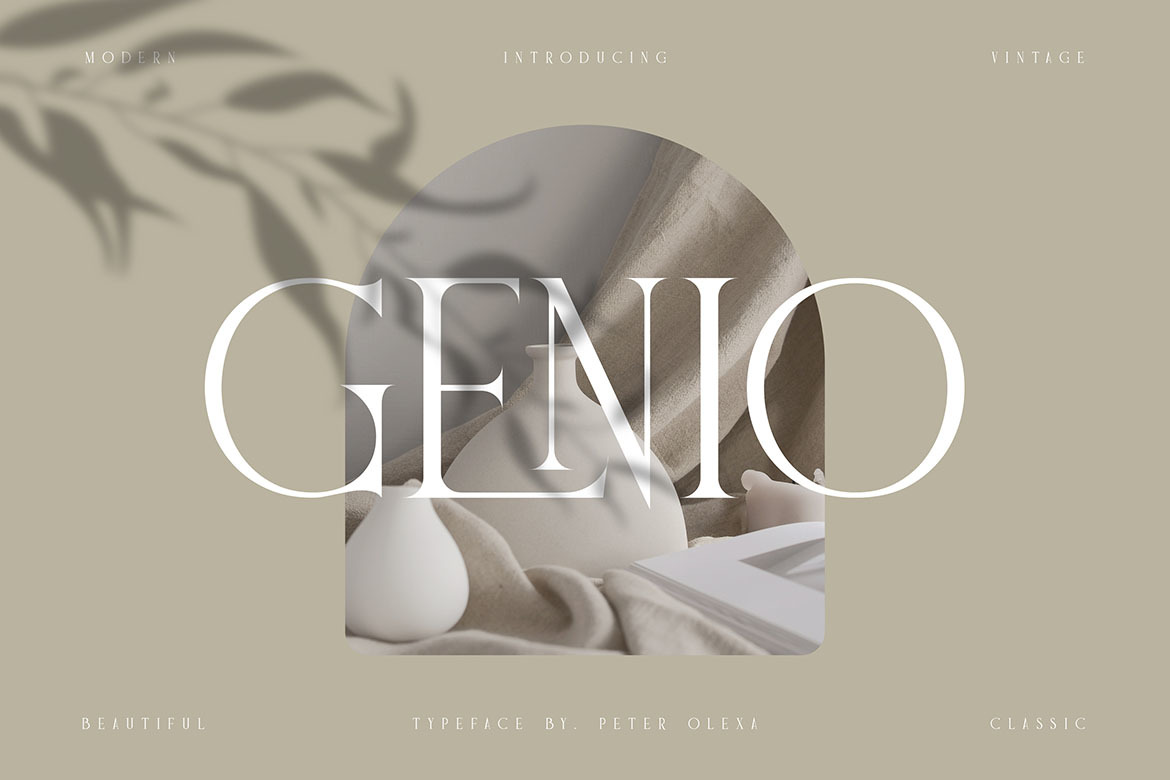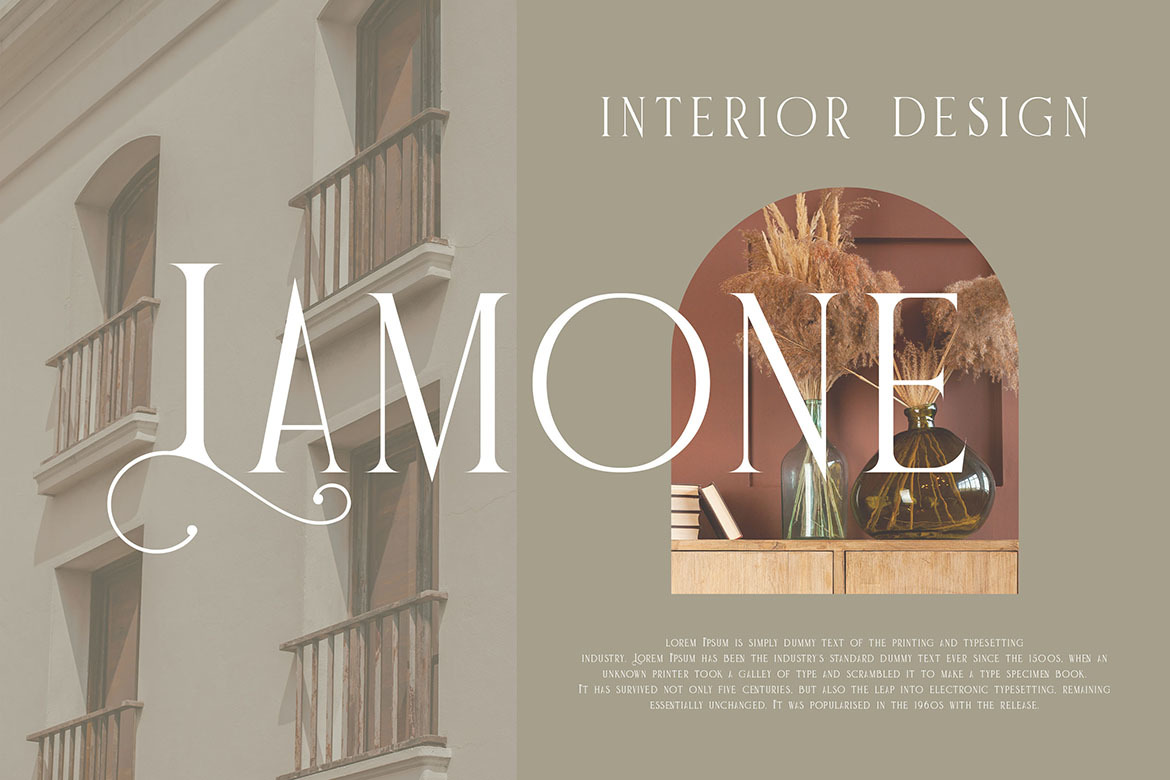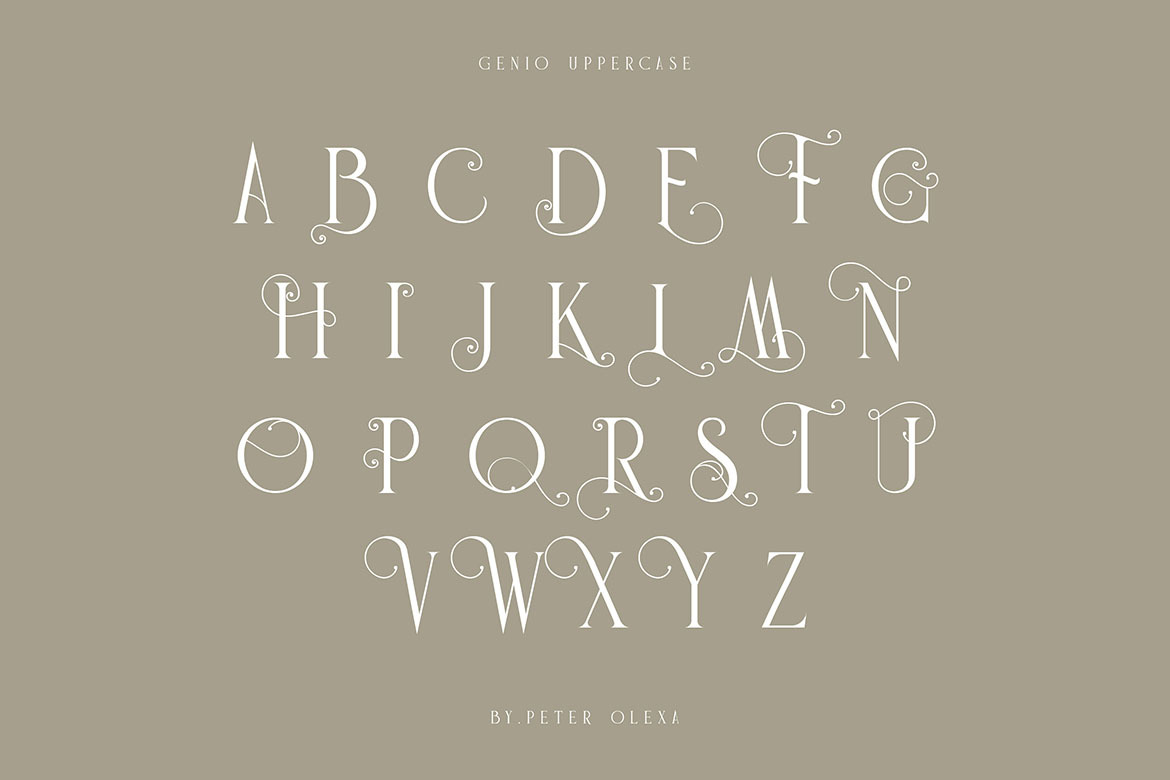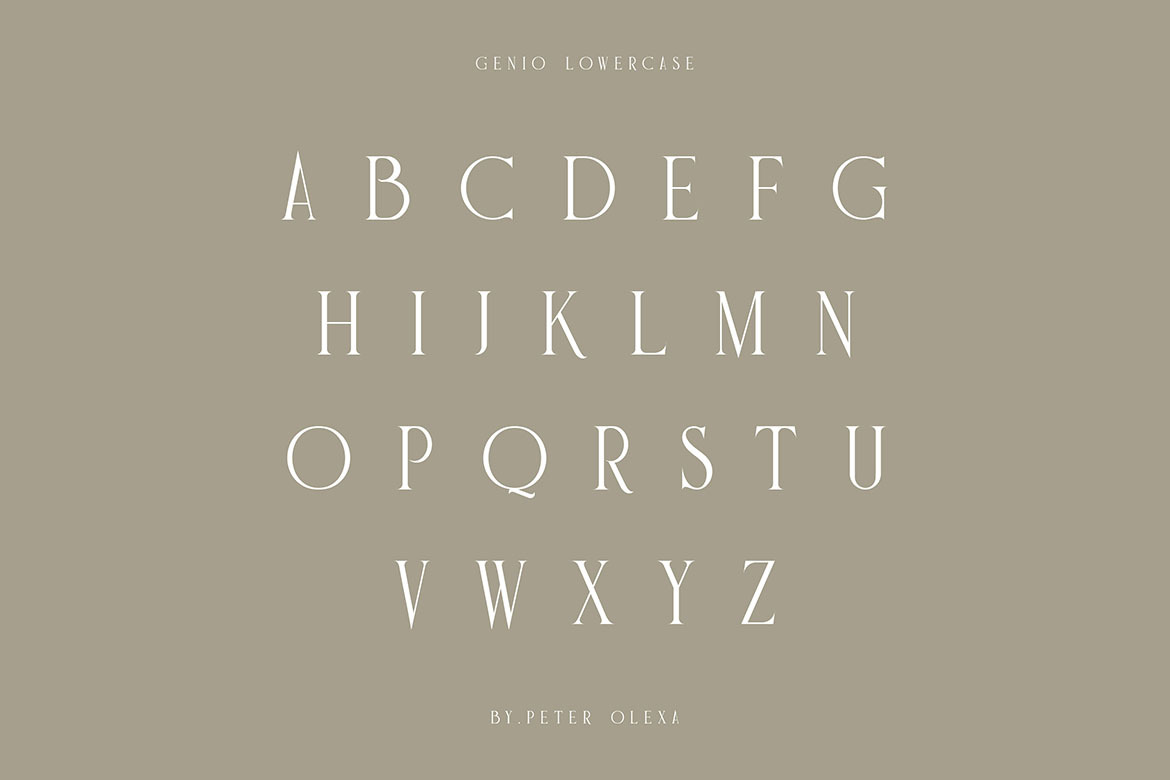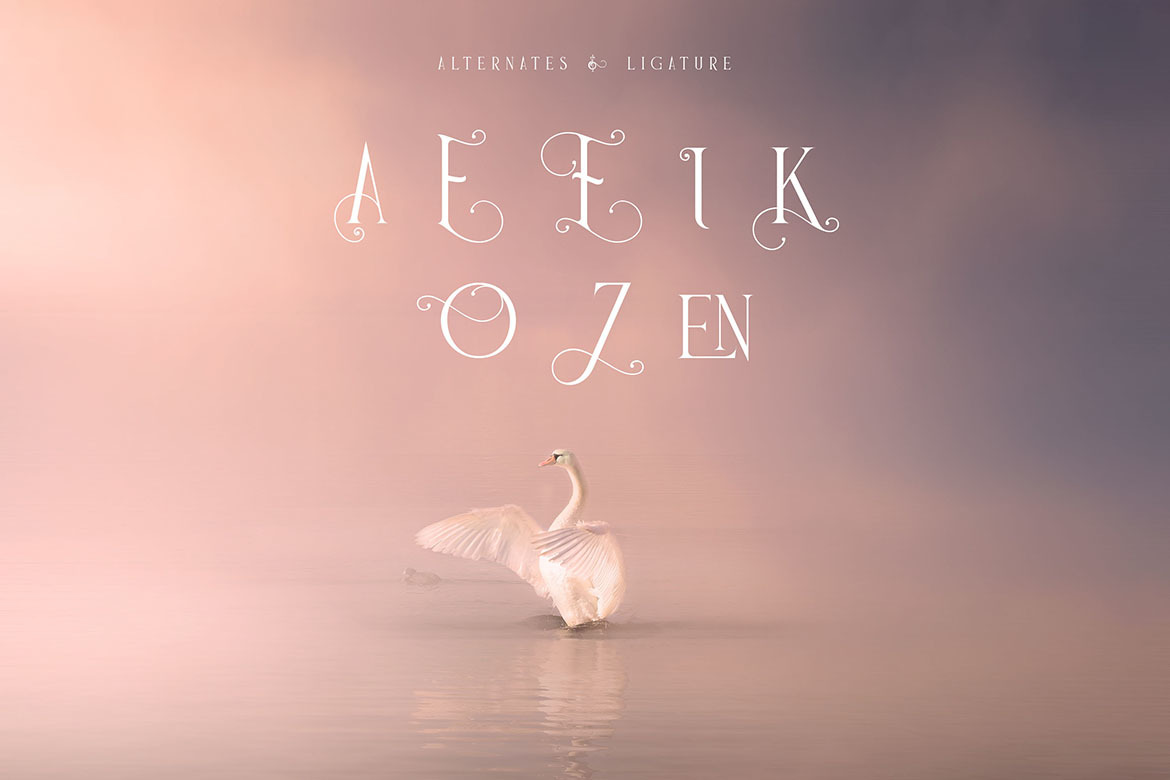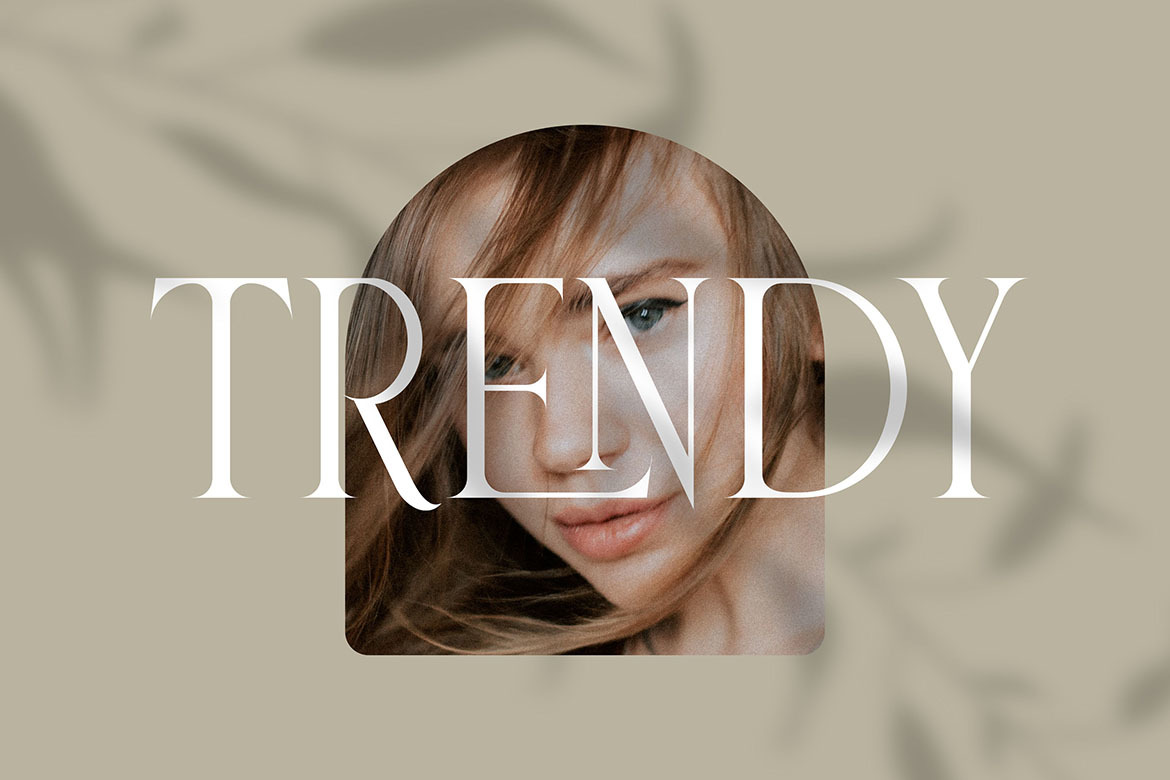
Genio Modern Serif Font
Trendy, modern, clean, vintage, retro & classy serif font. Great for your new logo or branding project.
-Alternates
-Great for retro or vintage style branding projects